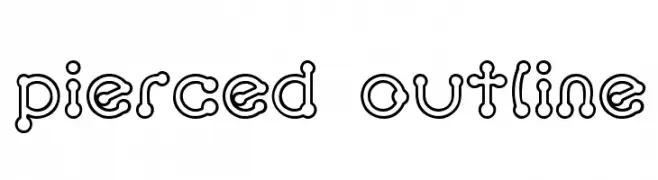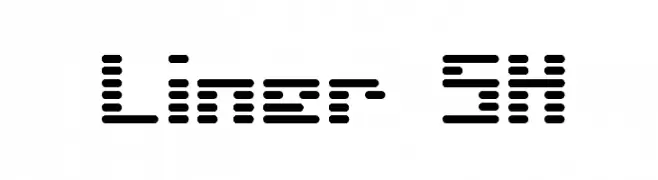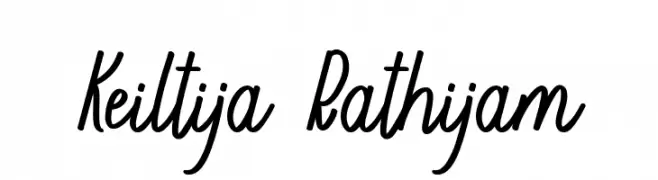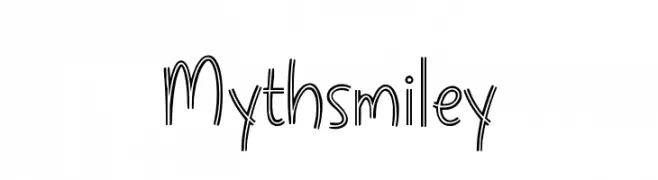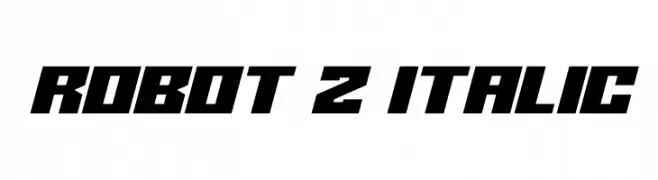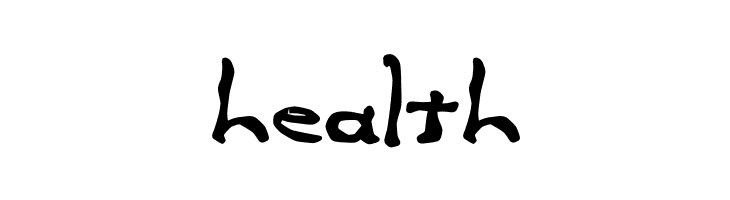
A tall, narrow font with high contrast and angular serifs, perfect for dramatic designs.
A playful, pierced outline font with a modern and decorative style.
A modern, geometric font with angular, tech-inspired characters.
A dot-matrix style font with a futuristic, tech-inspired design.
A dynamic handwritten font with smooth, fluid strokes and a casual elegance.
A rounded, medium-weight italic font with a friendly and modern style.
A semi-condensed serif font with moderate contrast and classic elegance.
A clean, modern, and semi-condensed font with excellent legibility.
A playful, double-line font with a whimsical and lively appearance.
A bold, italicized font with a futuristic and dynamic style.